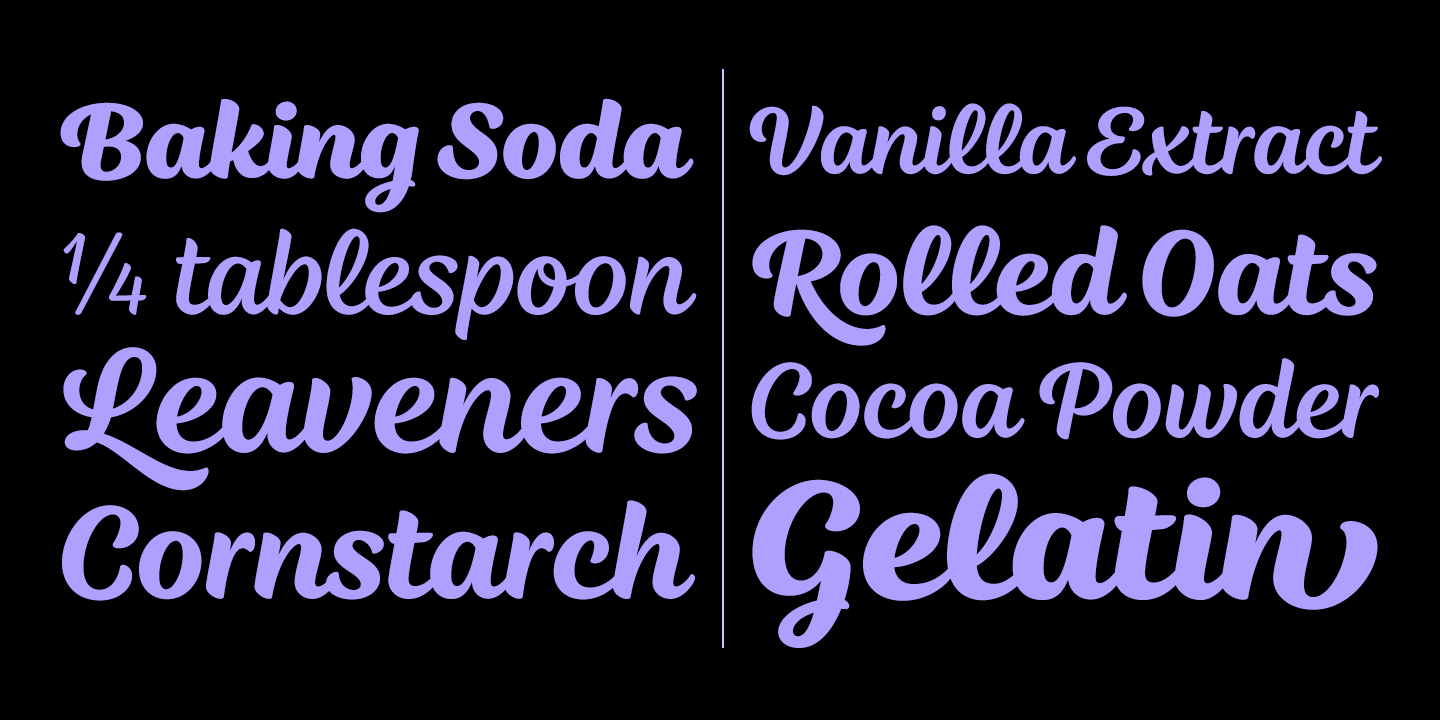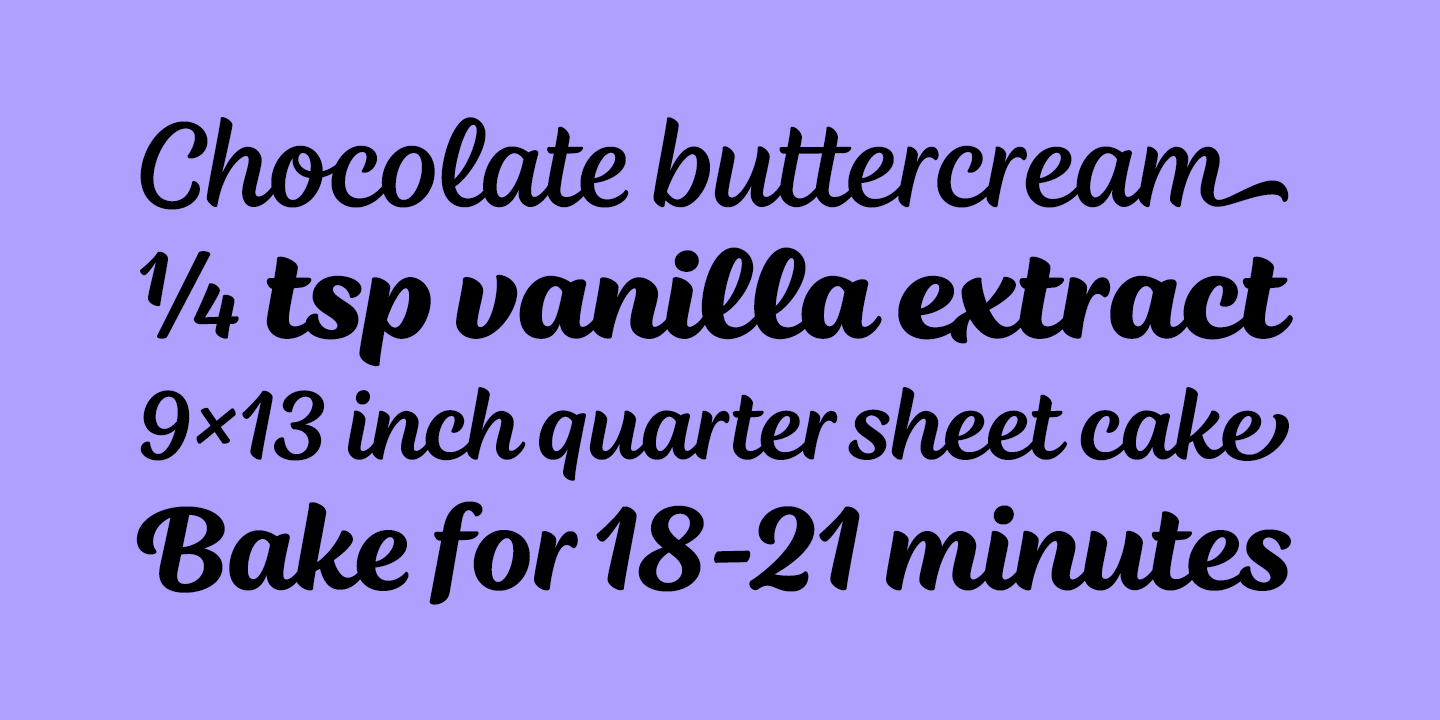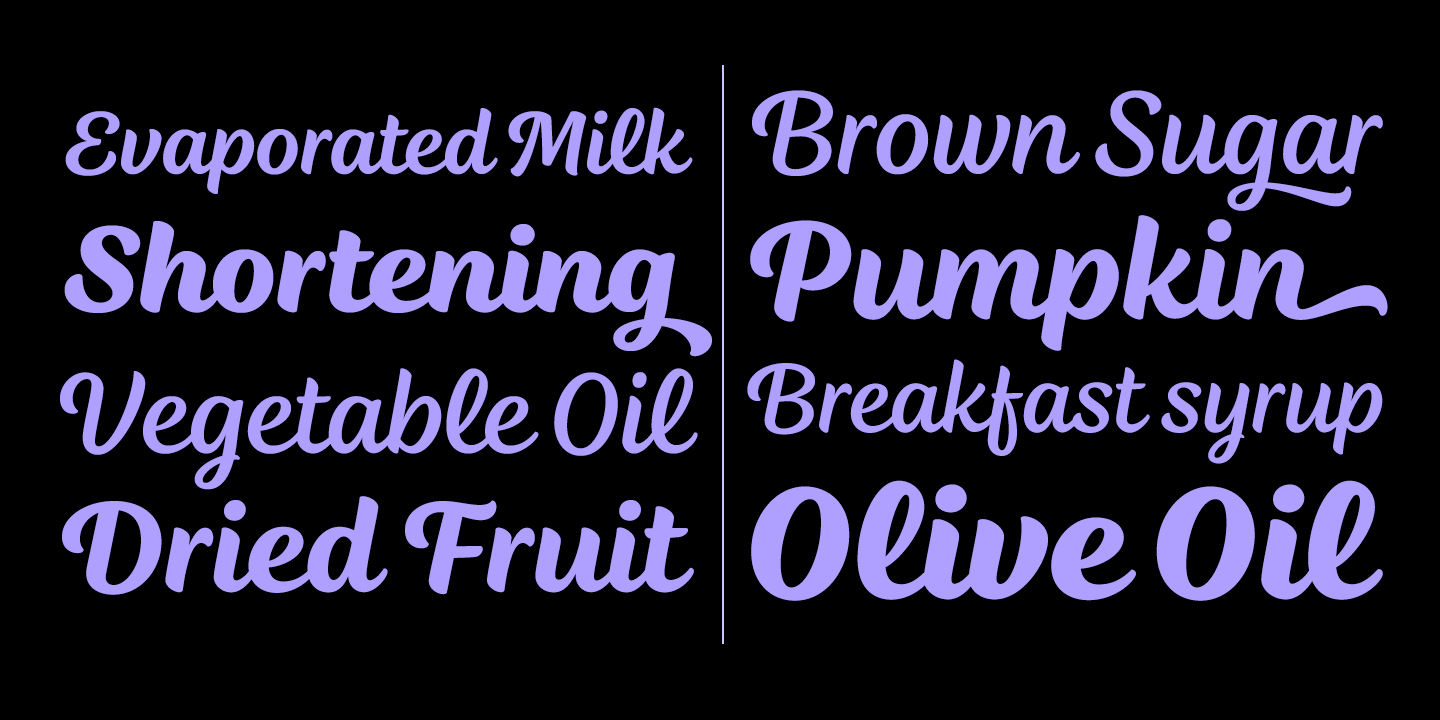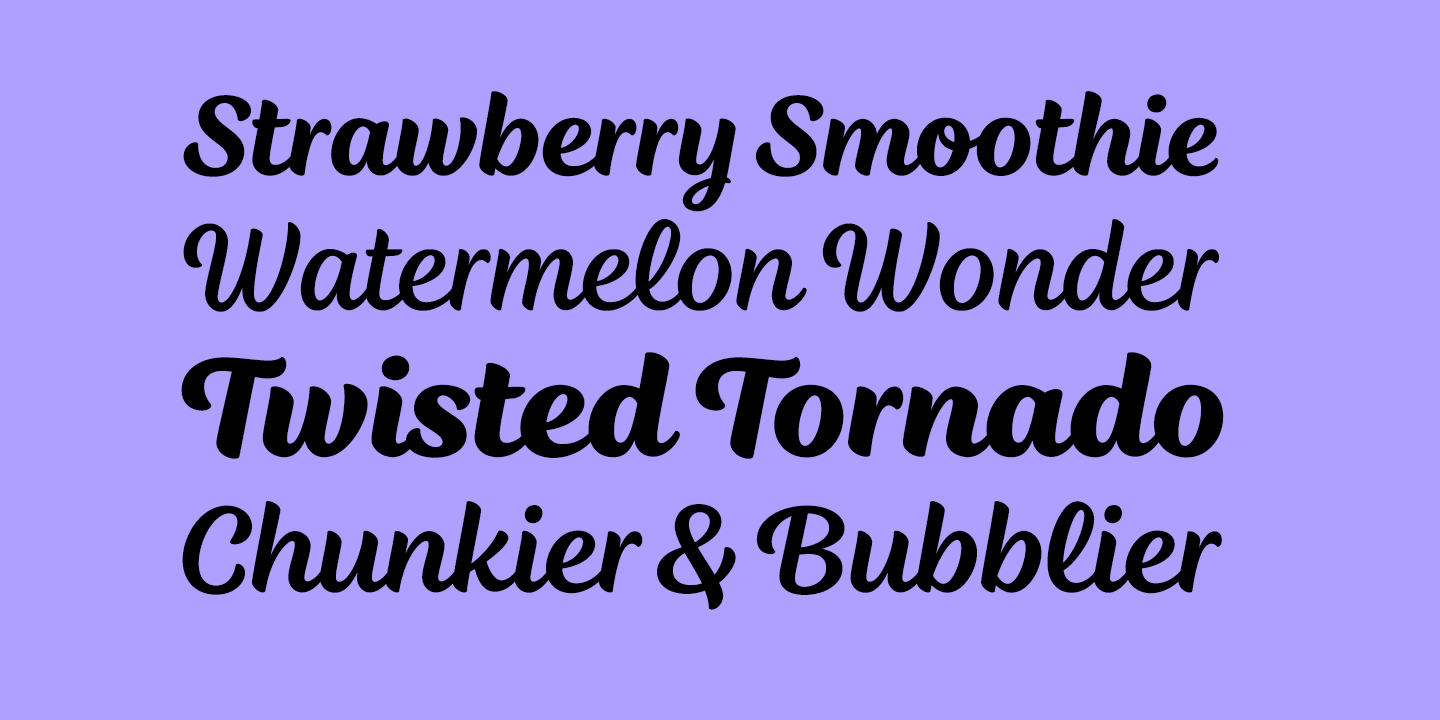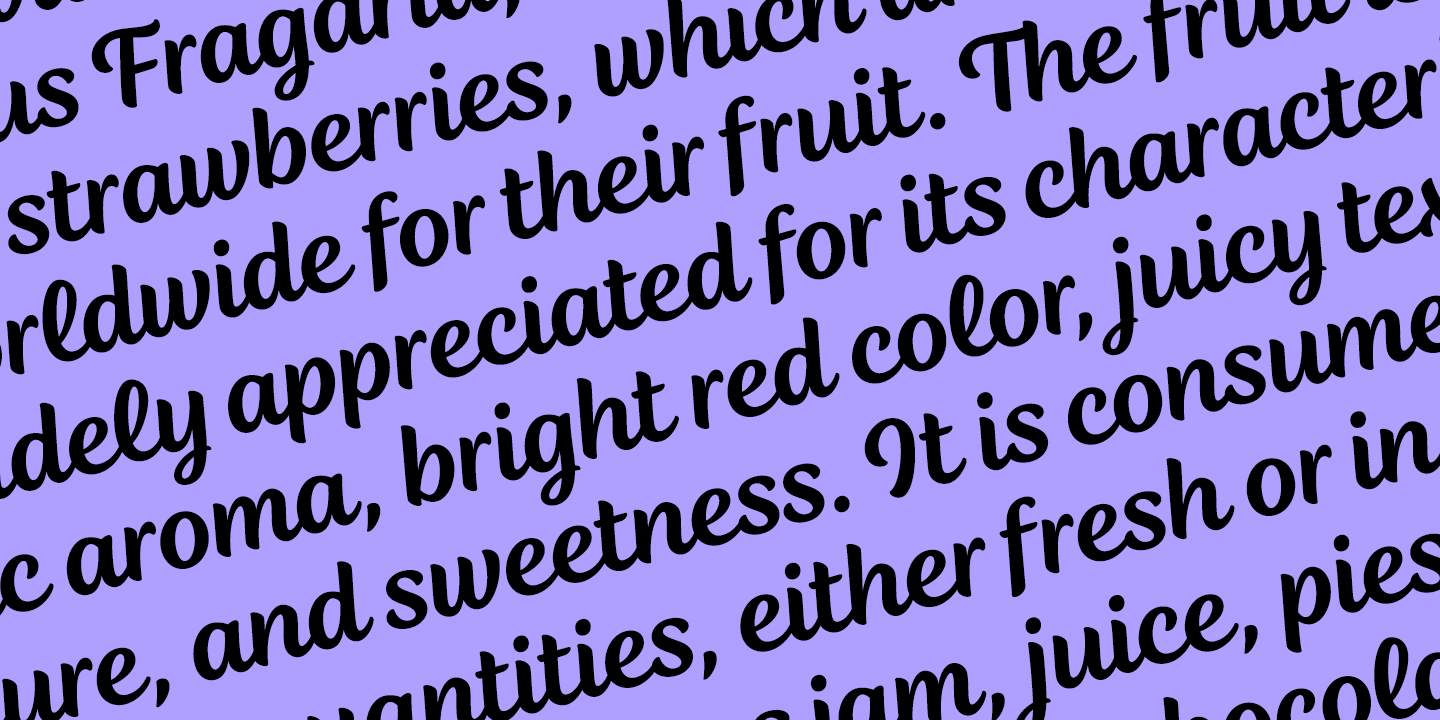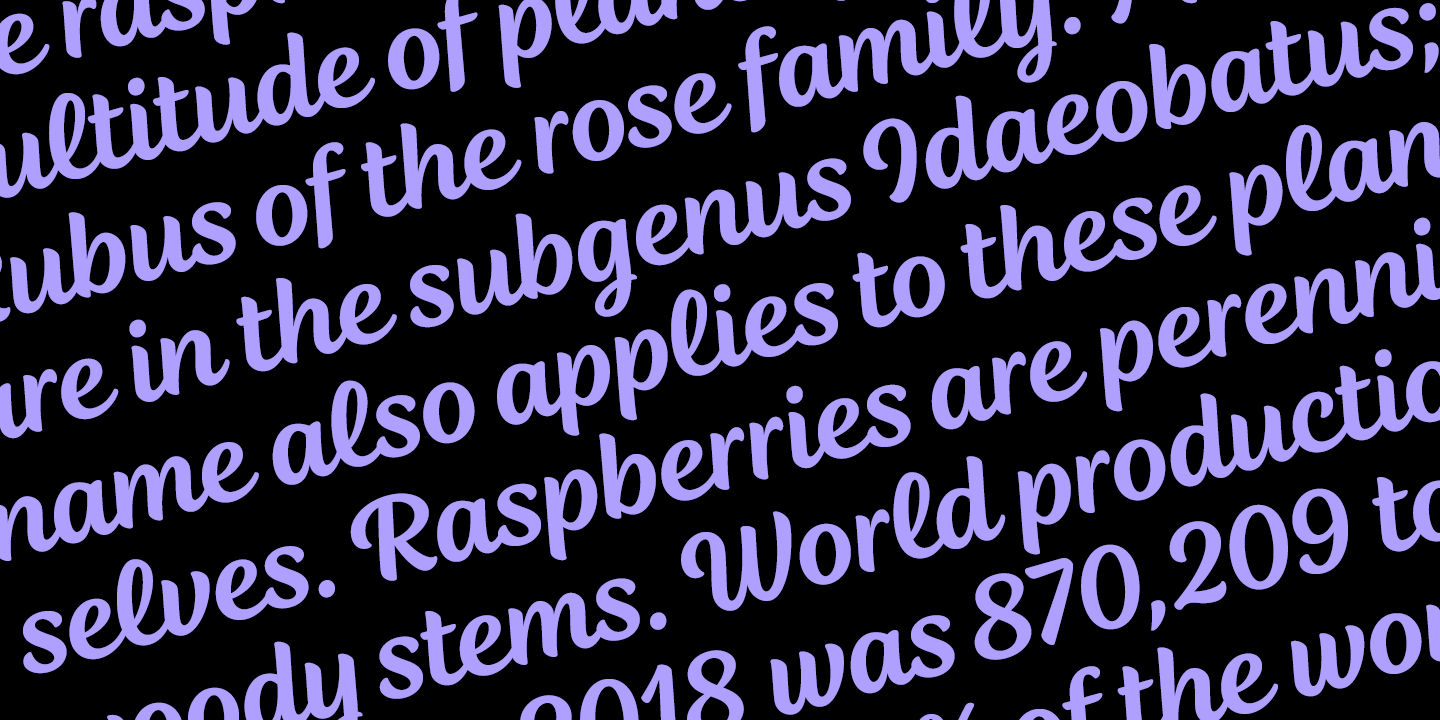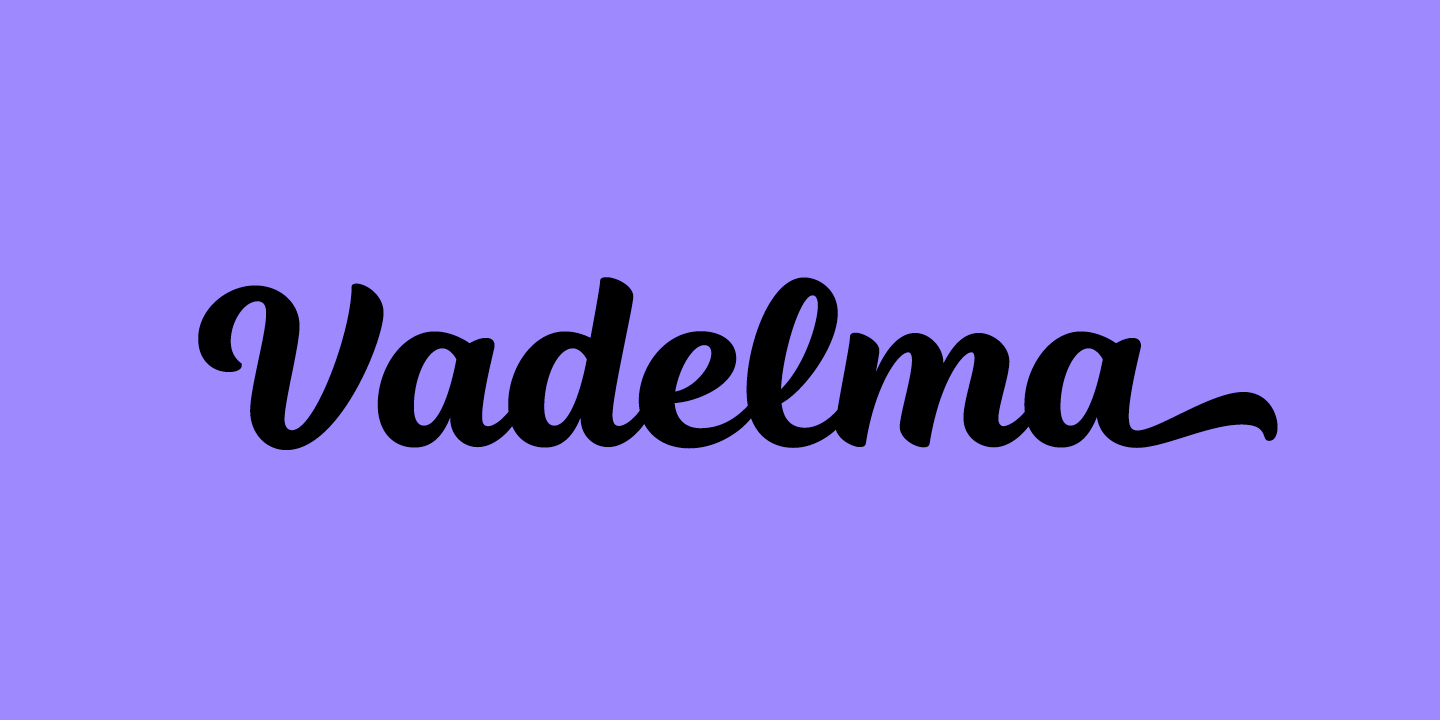
Vadelma
Vadelma is a script type family of four fonts. It is inspired by brush lettering and has soft and friendly looks. Vadelma can be used for branding, packaging and where ever you need a legible and smooth script font. Vadelma has lots of ligatures, swashes and alternative characters that will make your design unique and beautiful.